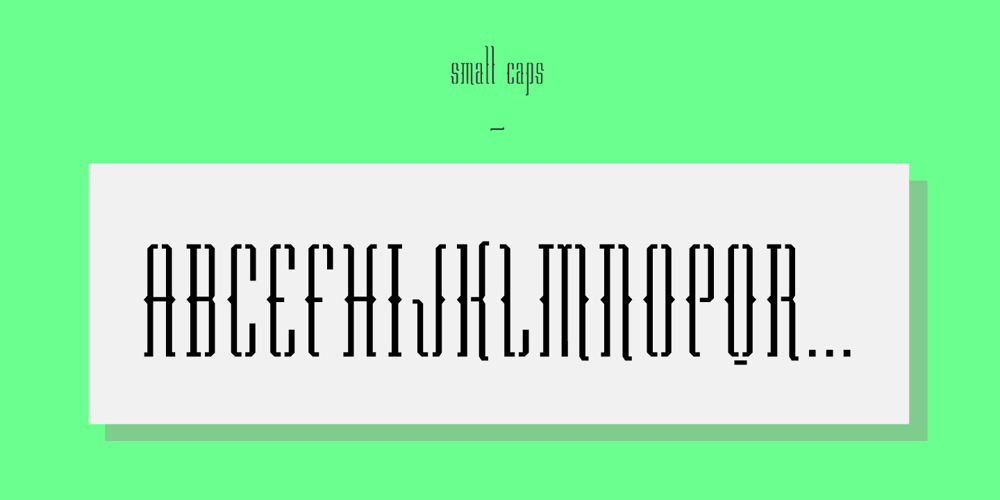
Prfecox
Prfecox font
Prfecox Font Family was designed by Rômulo Gobira and published by Rômulo Gobira. Prfecox contains 12 styles and family package options. Prfecox is a stencil typeface inspired by some characteristics of wood type and blackletter. Works best in headlines and small passages of text. The family supports almost all Latin languages available and includes the following OpenType features: Small Caps, Fraction, Oldstyle Figures, Subscript and Superscript numbers, Standard and Discretional Ligatures.